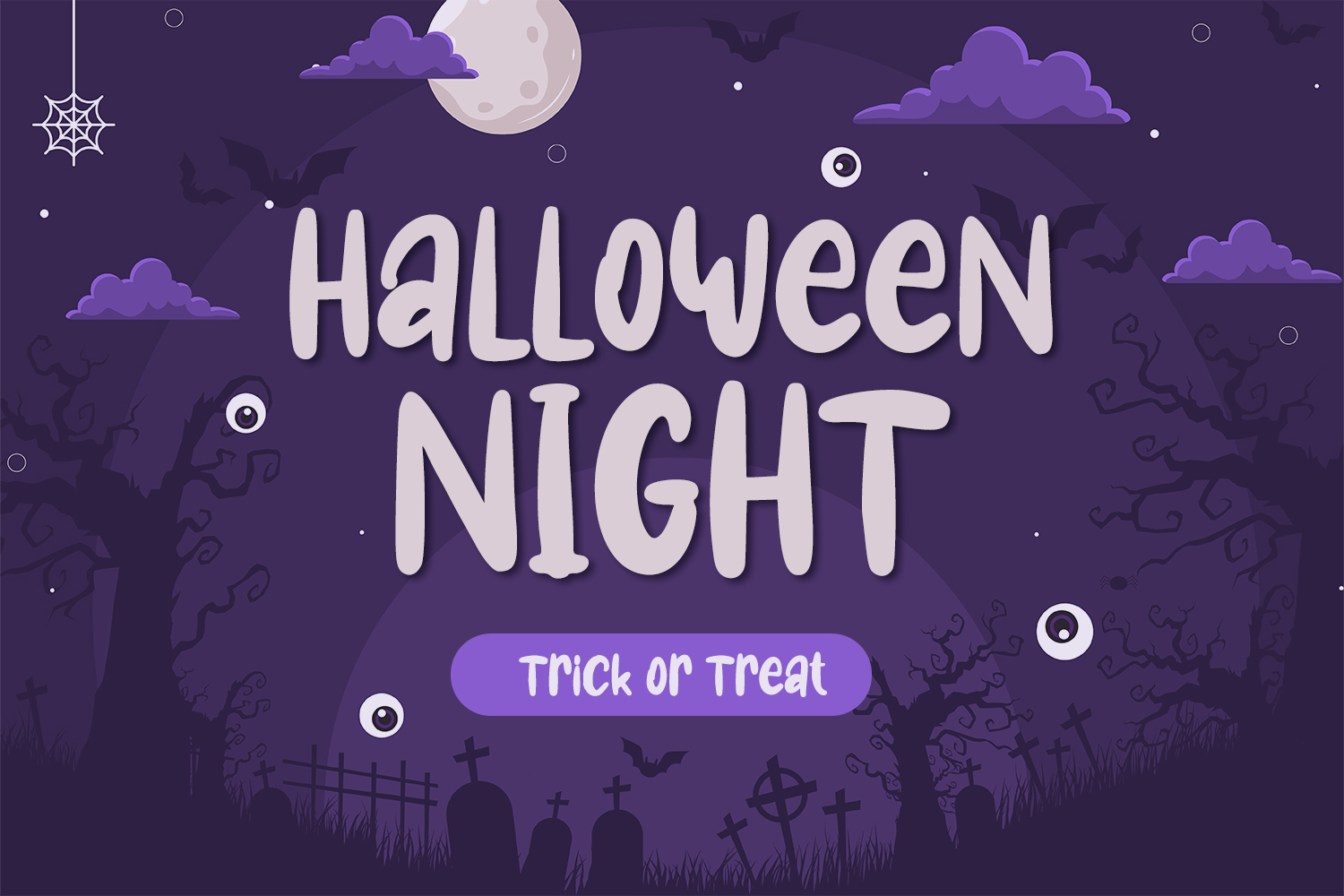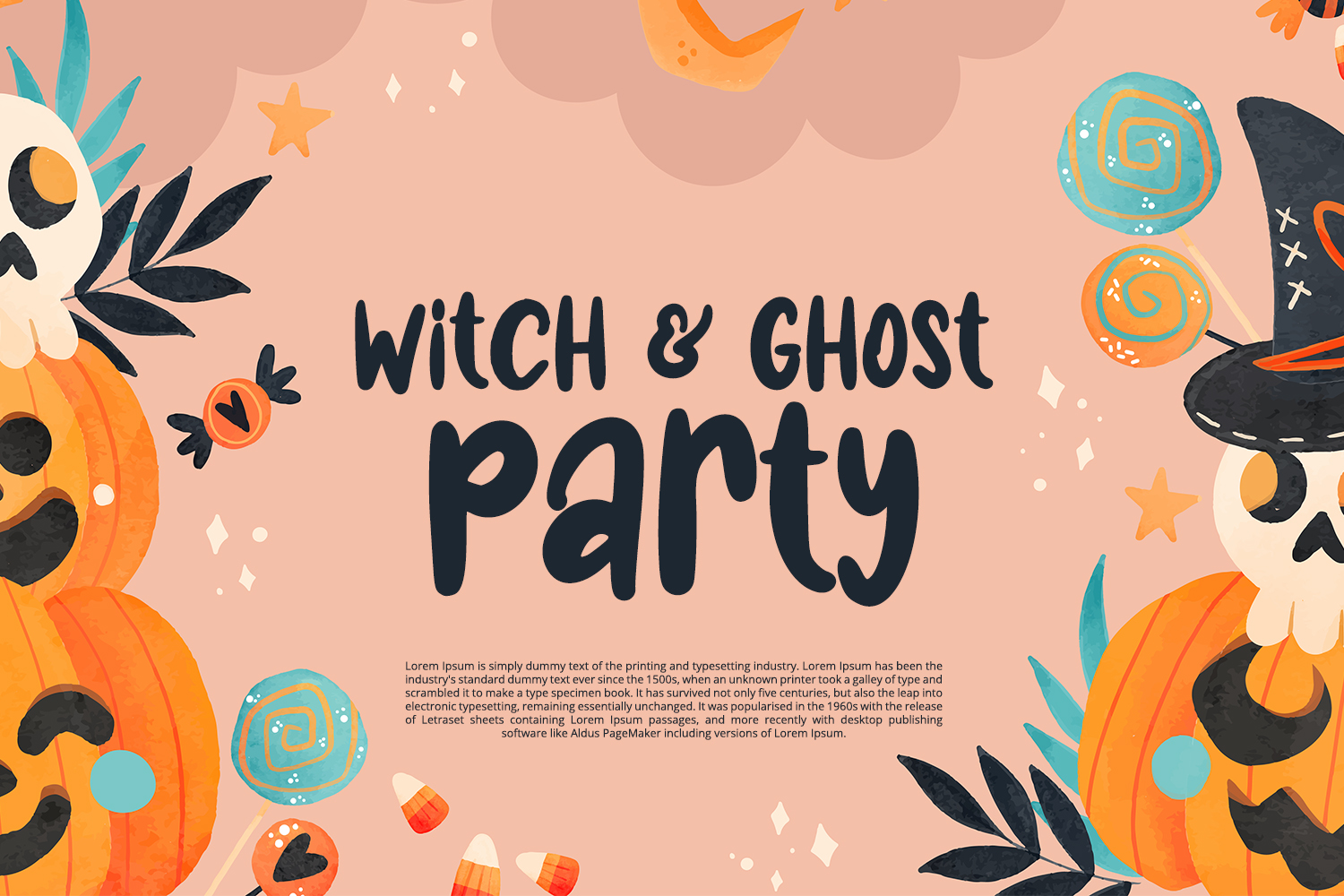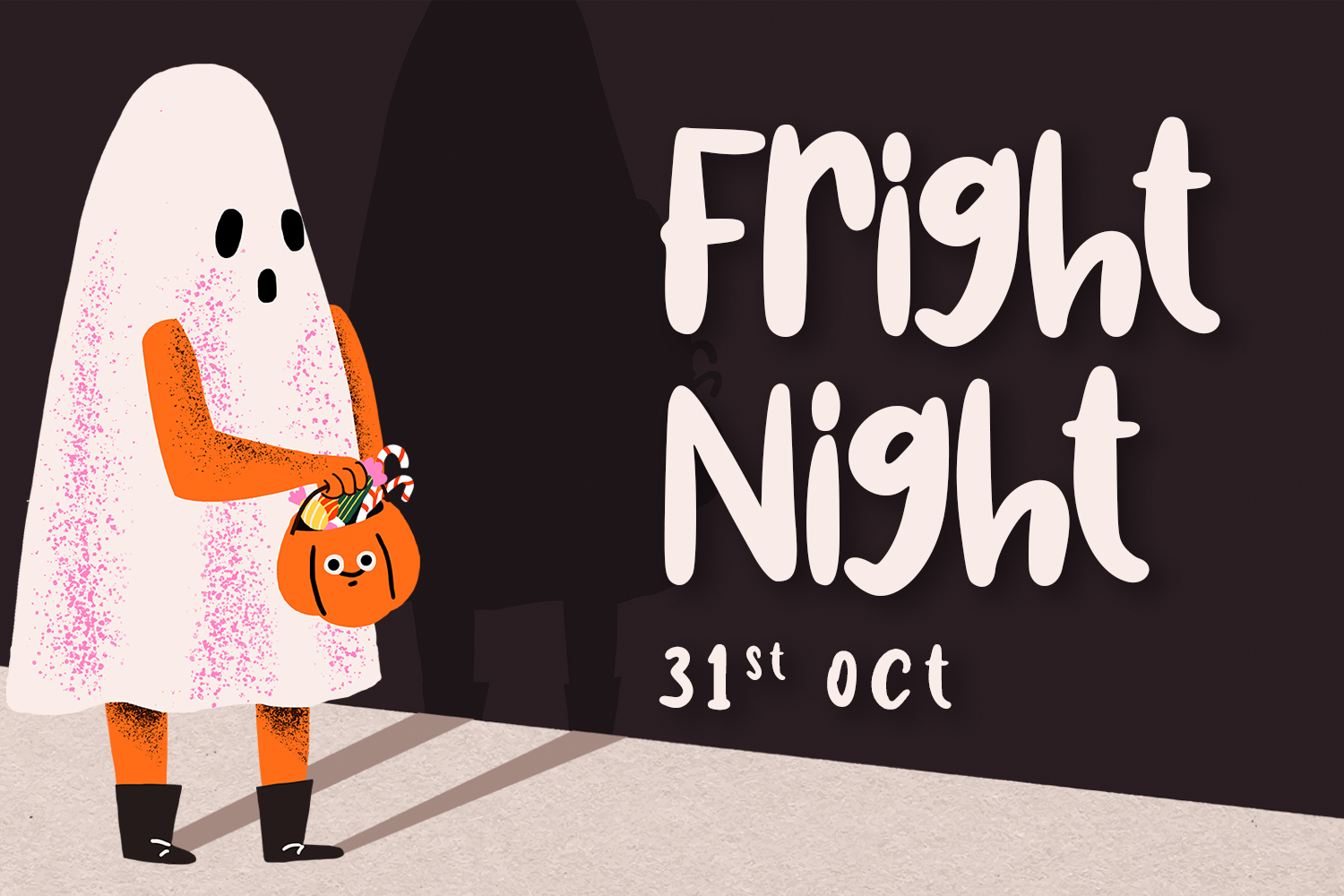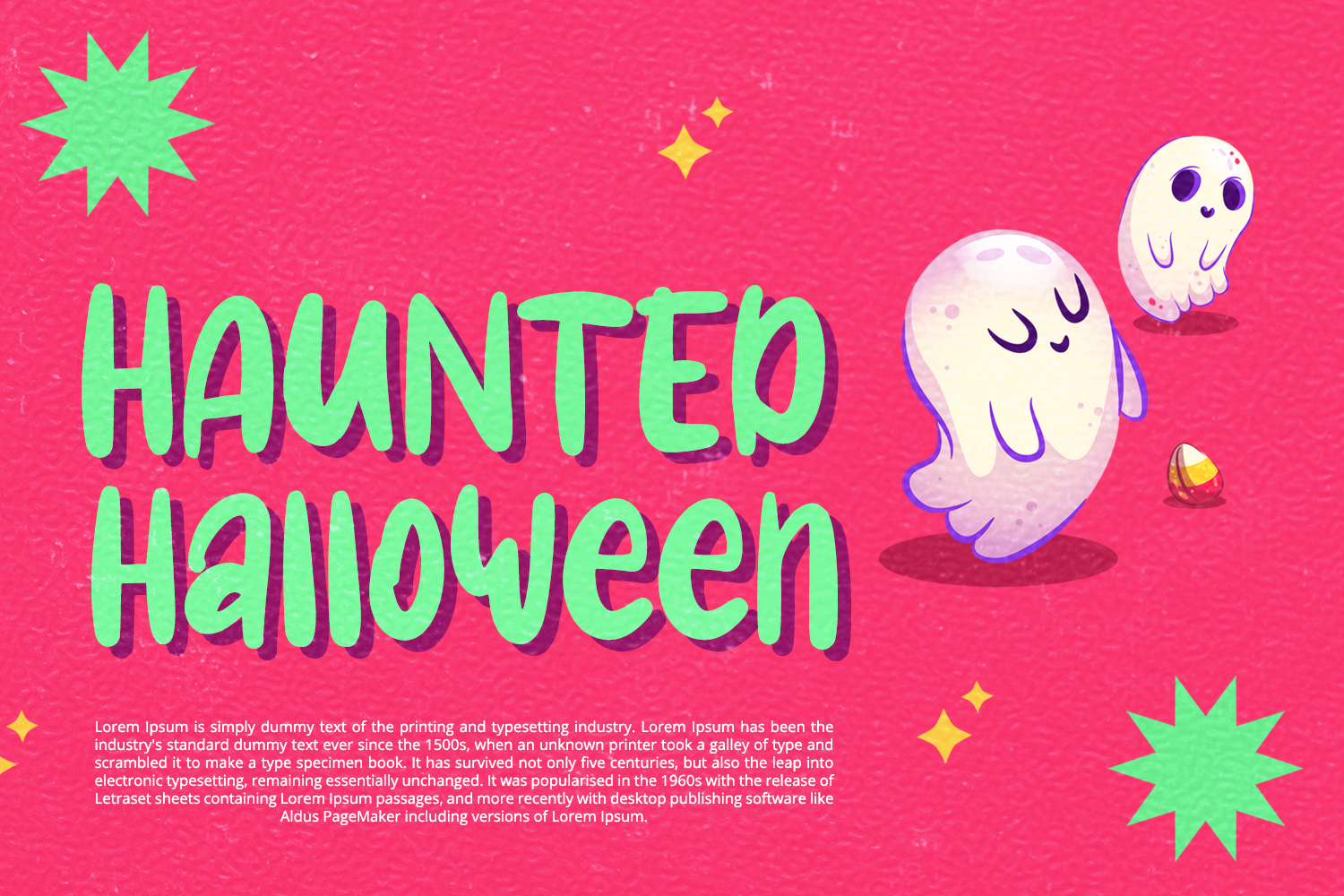
Magic Candy Font
Magic Candy Display Font is a stunning playful display font with cute and playful feels. It will be perfectly used for Branding, Logo Design, Lettering, Logotype, Clothing, Poster, magazine, packaging, posters, shopping bags, t-shirts, book covers, photography, special events and other design project.